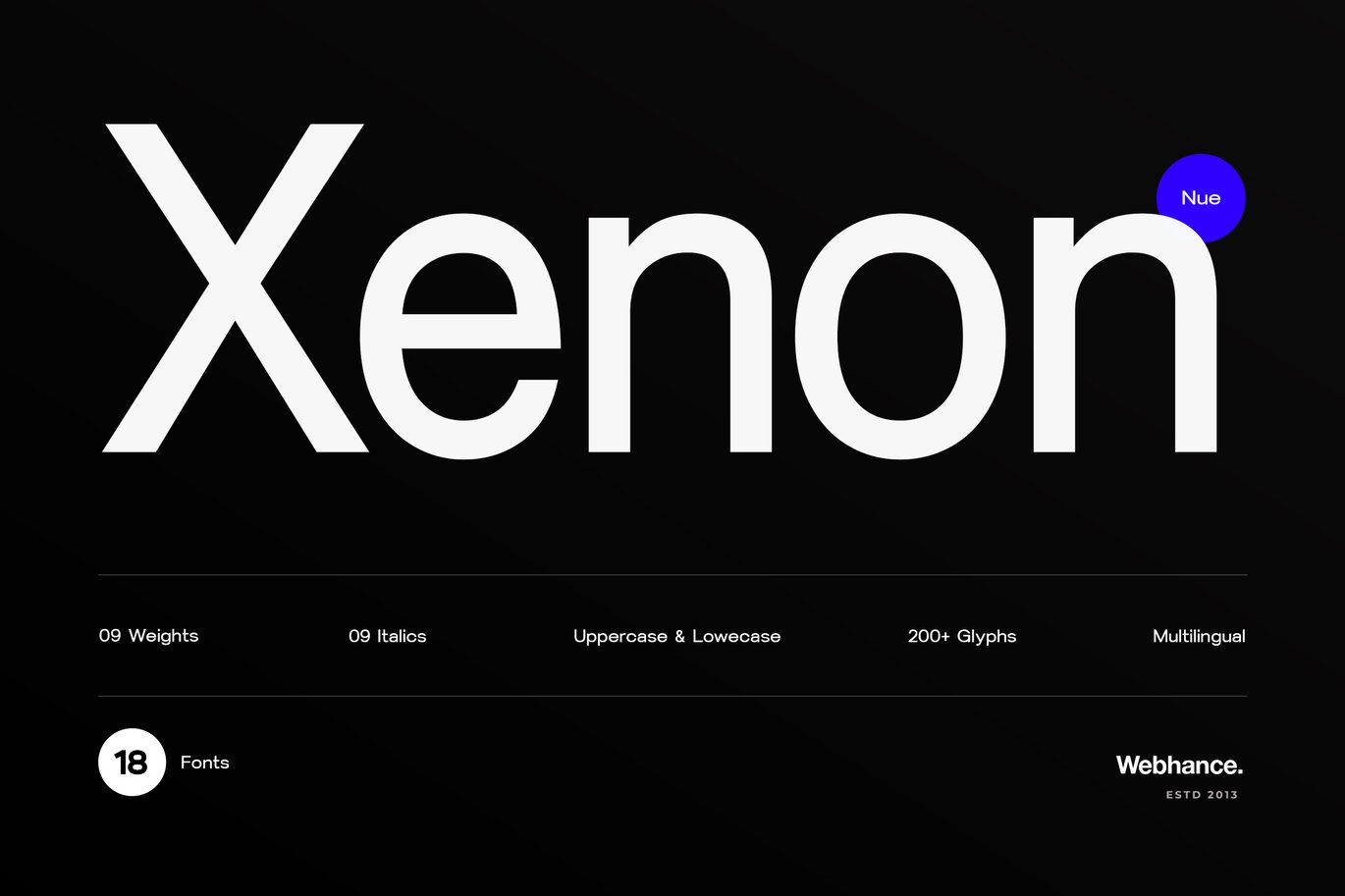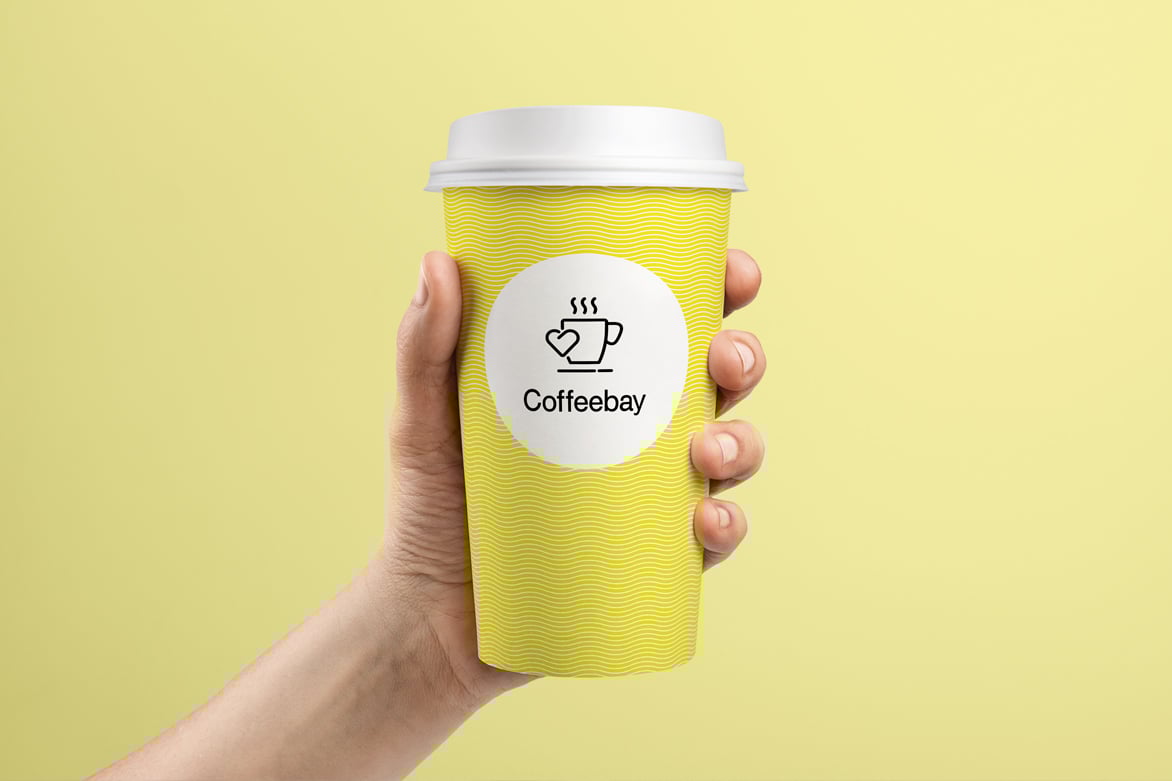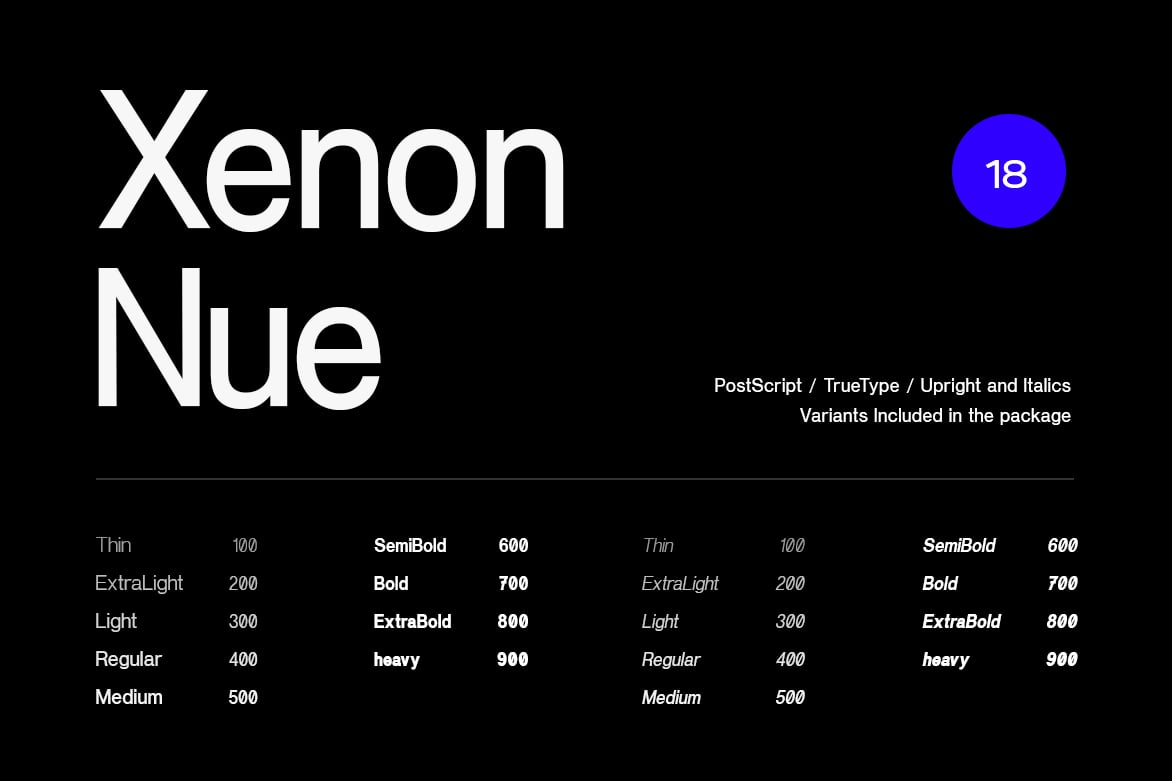
Xenon Nue – A premium sans-serif font family Font
Xenon Nue is a straightforward grotesk sans, the kind you reach for when you want a brand to feel modern and clear. Alwin Johnson of Webhance Studio drew it with tight spacing, a large x-height and simple, closed curves, so headlines look solid and compact.
The full family has 18 fonts: nine weights from Thin to Heavy, each with an italic, and over 200 glyphs with multilingual support. The Coffeebay cup in the specimen shows the lighter side, while the bold title proves it can carry a poster too.
Best uses for Xenon Nue
• Brand identities and logos
• App and website interfaces
• Café and retail packaging
• Posters and ads
• Annual reports and presentations
Xenon Nue can work alone thanks to its weight range. If you want a contrast, Newsreader gives a classic serif for long articles. DM Serif Display adds style to headlines. For code or data, JetBrains Mono keeps the tone modern.
What free font is similar to Xenon Nue?
Inter and Manrope on Google Fonts are free, open licence sans families with a similar clean, modern build.
How many weights does Xenon Nue have?
Nine, from Thin to Heavy, and each has a matching italic, so the full family has 18 fonts.